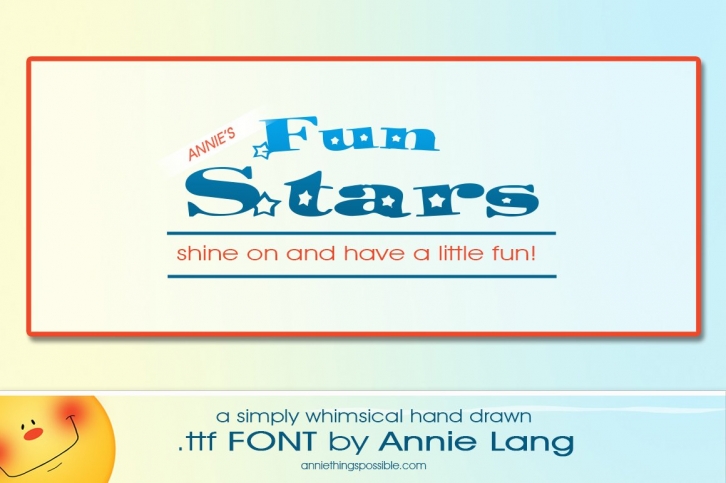
Annie's Fun Stars FONT Download
A hand rendered whimsical font that lends itself perfectly to any project that needs to stand out and shine on. This simple novelty font was originally created as a .ttf vector font that I've used to create rasterized color wordart elements for commercial Americana textile prints, book illustrations, greeting card art, classroom teaching printables, children's games, patriotic flyers, and scrapbooking clipart. If you're looking to shine on and have some fun, this is the font for you!